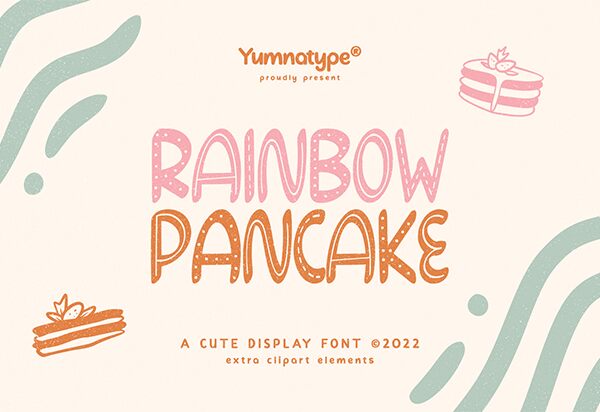
Rainbow Pancake font by Yumna Family is a display font with a cartoon style. It has rounded organic shapes with an informal playful aesthetic that’s simply eye-catching. The font combines retro and modern vibes which adds an interesting twist to its display look.
The free cartoon display font is applicable in greeting card designs, album covers, chapter books, social media channels, advertisements, websites, branding projects, typographic posters and lots more.